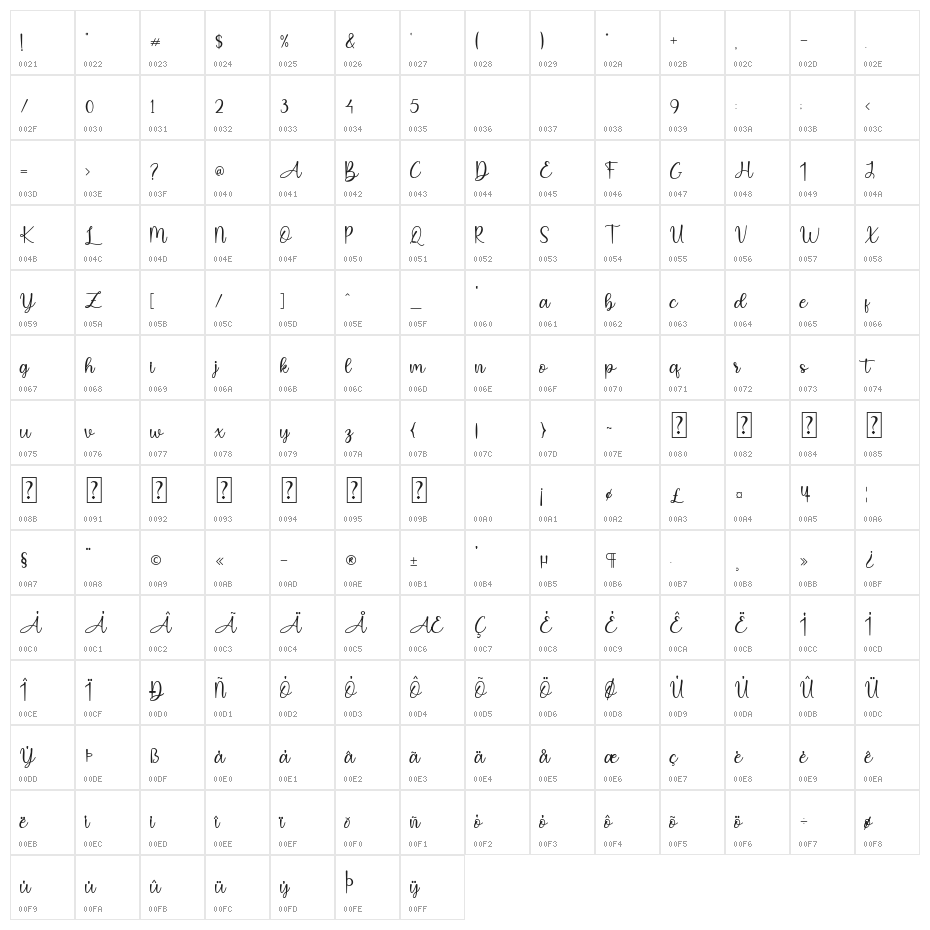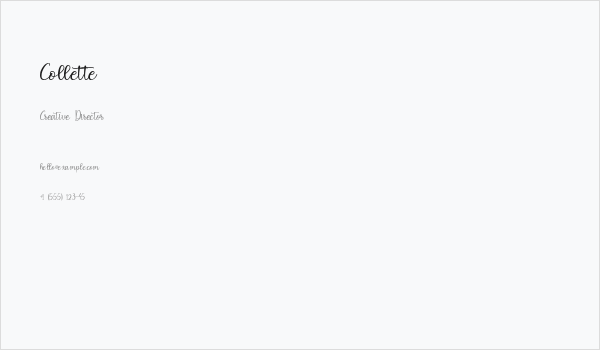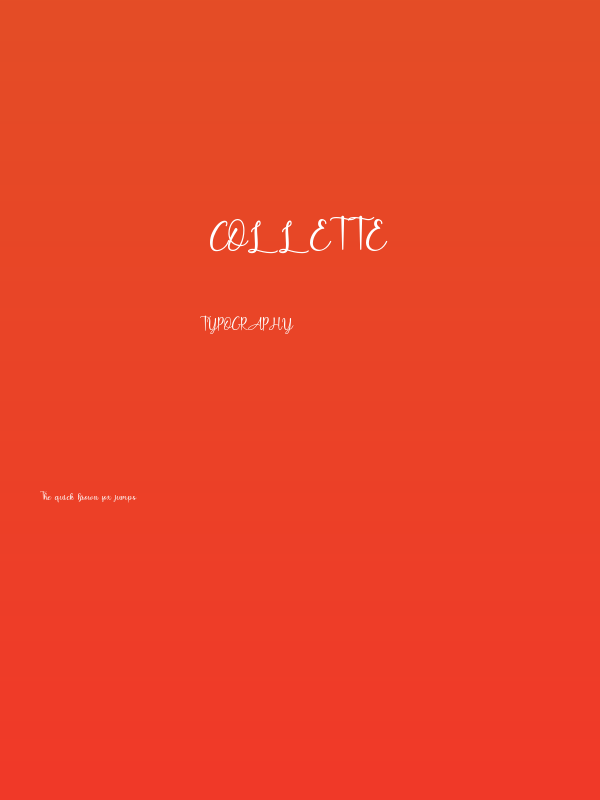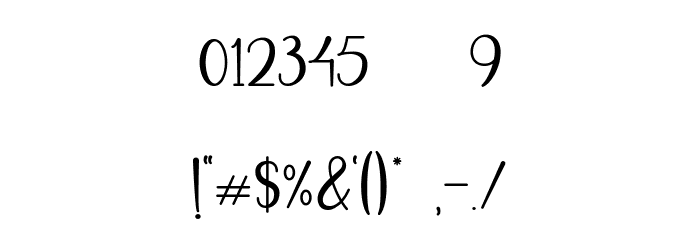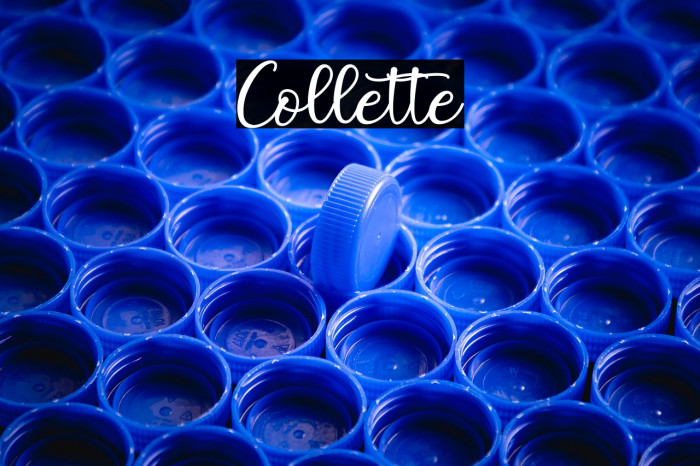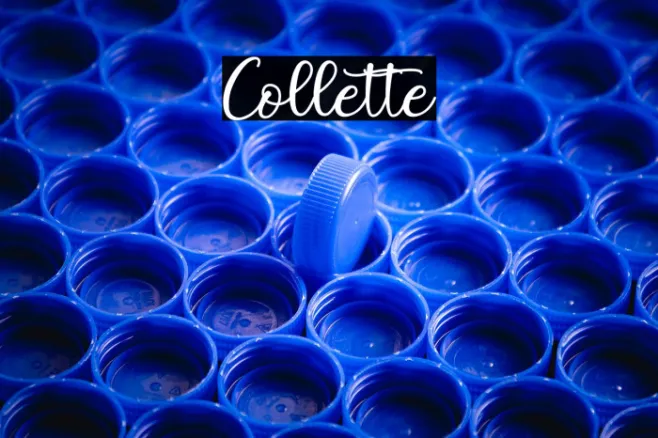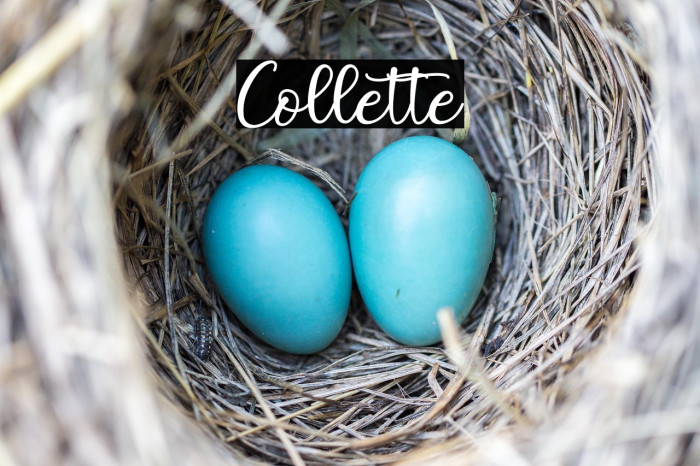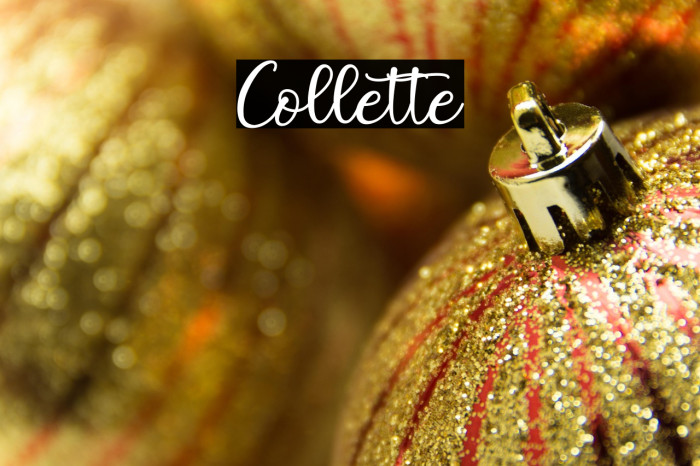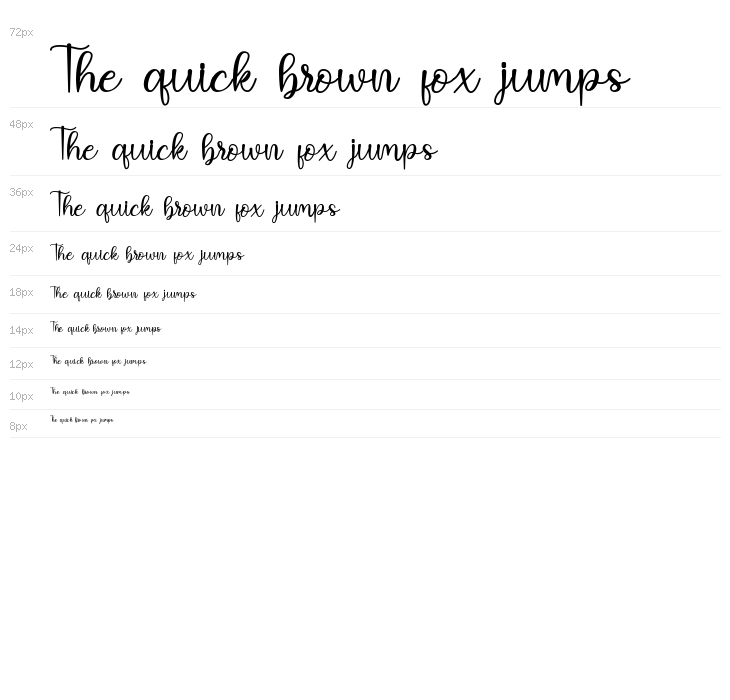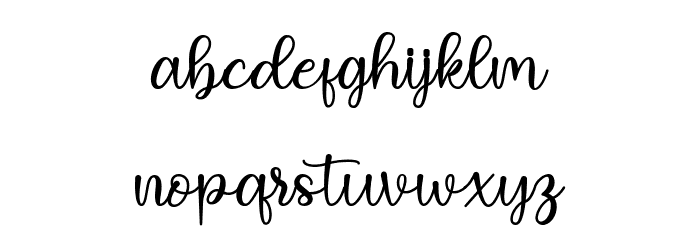
Collette Font
Collette Description
This font features an elegant, flowing script style with a handwritten appearance. The uppercase letters are characterized by their graceful loops and swashes, giving a sense of movement and fluidity. The lowercase letters maintain a consistent style, with smooth curves and a slightly playful touch. The numerals are clear and easy to read, while the special characters blend seamlessly with the overall aesthetic. This font exudes a sense of sophistication and charm, making it ideal for projects that require a personal or artistic touch.
| Overall Style | Elegant, Artistic |
| Proposed Projects | Ideal for wedding invitations, greeting cards, personal branding, and artistic projects. |